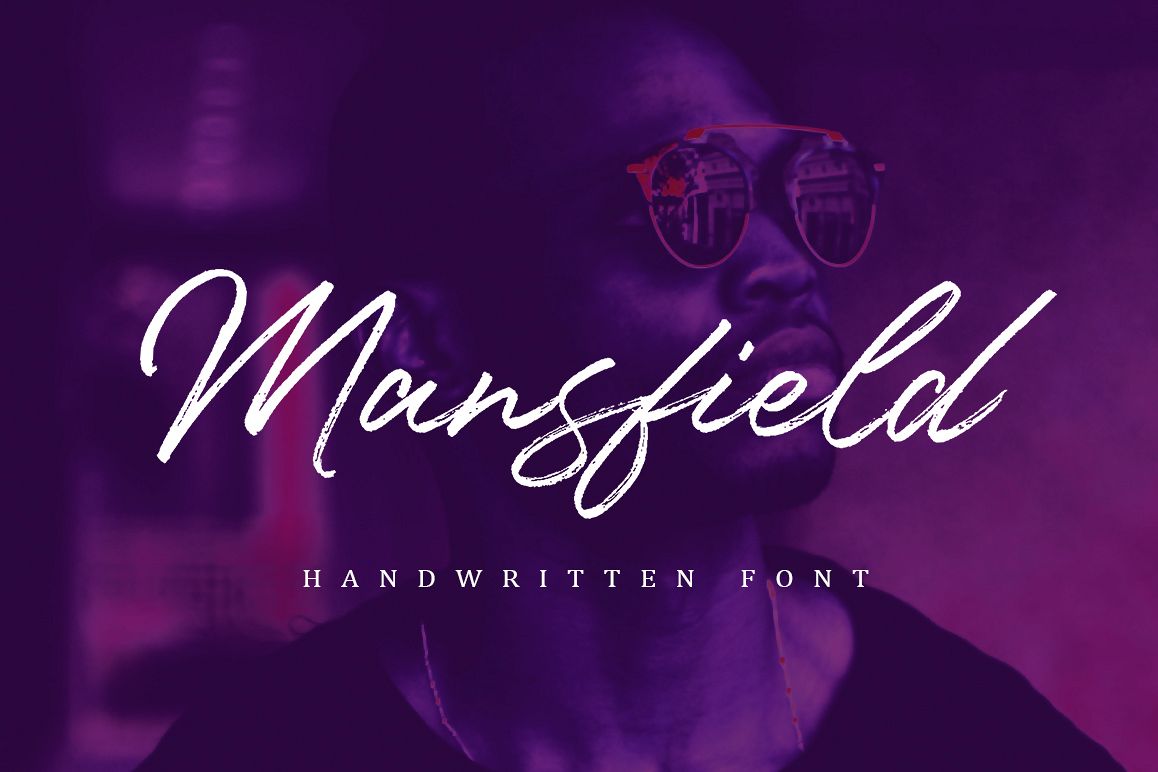
Mansfield Font
Introducing Mansfield is a rough handwritten font, this font is perfect for branding, screen printing, logos, business cards, magazines, etc.
Mansfield Font